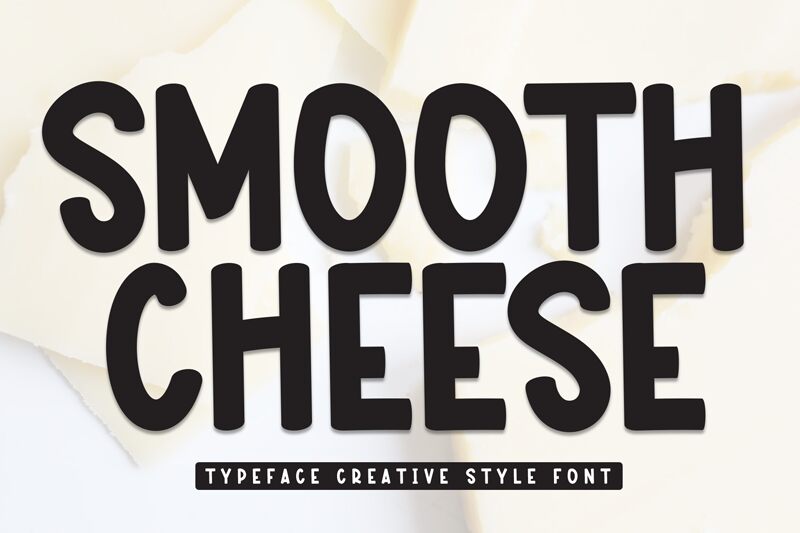
SMOOTH CHEESE
Smooth Cheese font by Scratchones is a playful display script with cartoon stylization for an informal and casual look. This free font features exaggerated curvatures with italic inclinations, giving off nostalgic retro vibes in its approachable atmosphere.
Use Smooth Cheese on items like comic book text, children-oriented designs, social media posts, web pages, logos, product packaging and labeling, ads as well as any digital content.